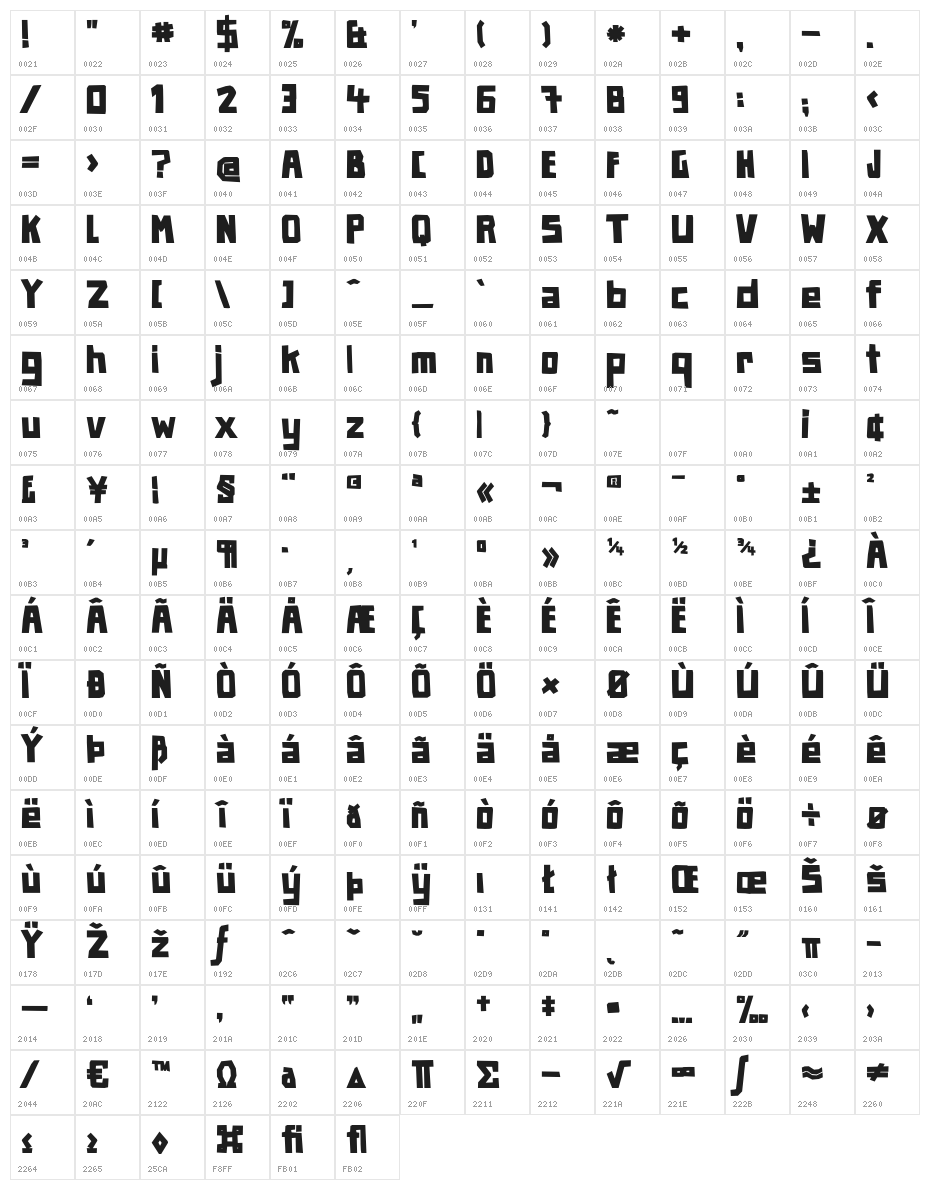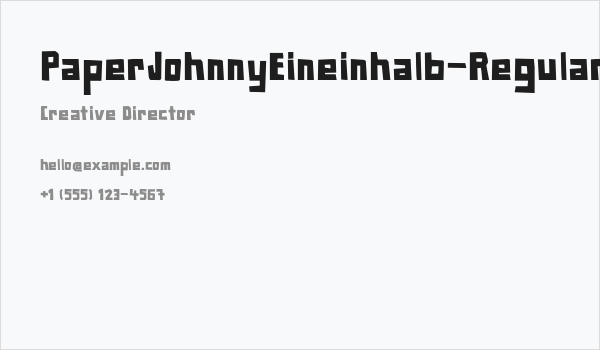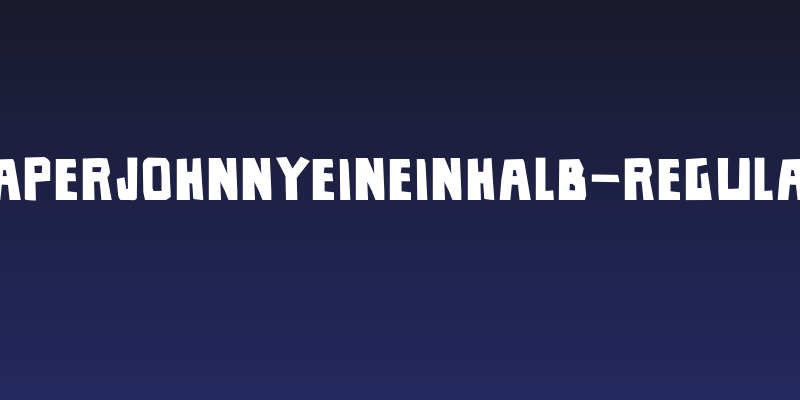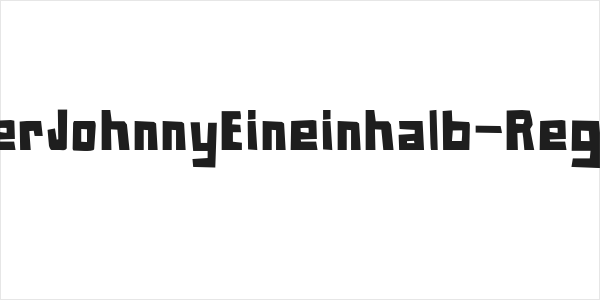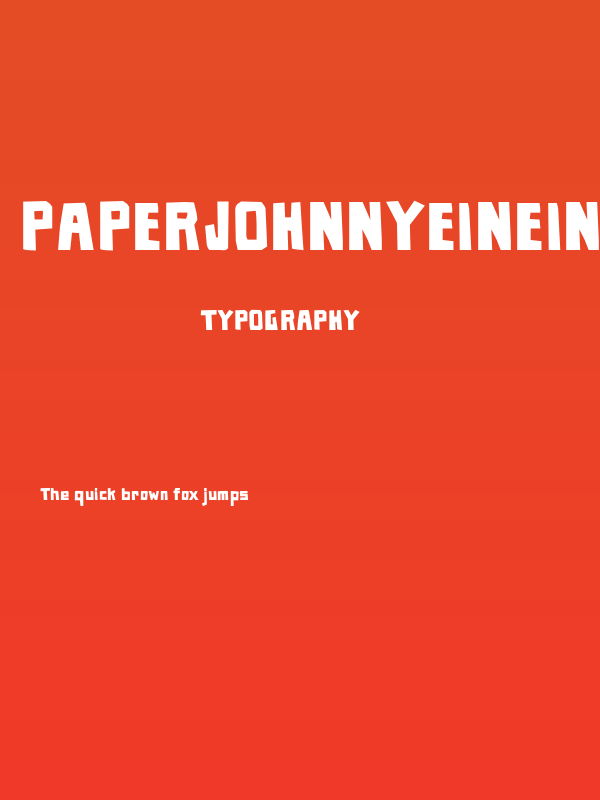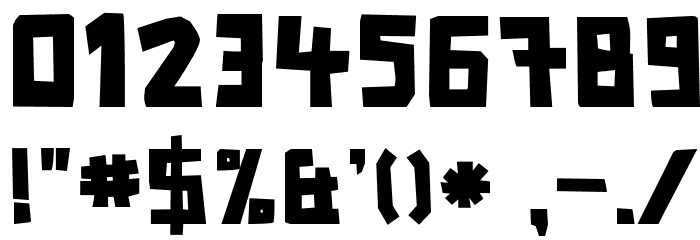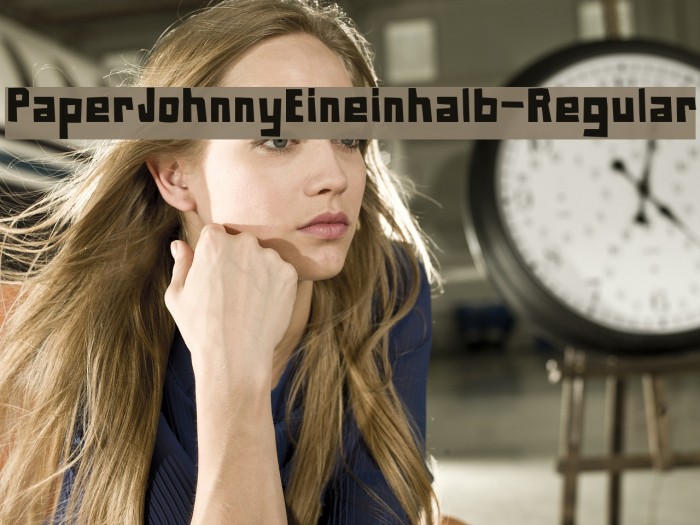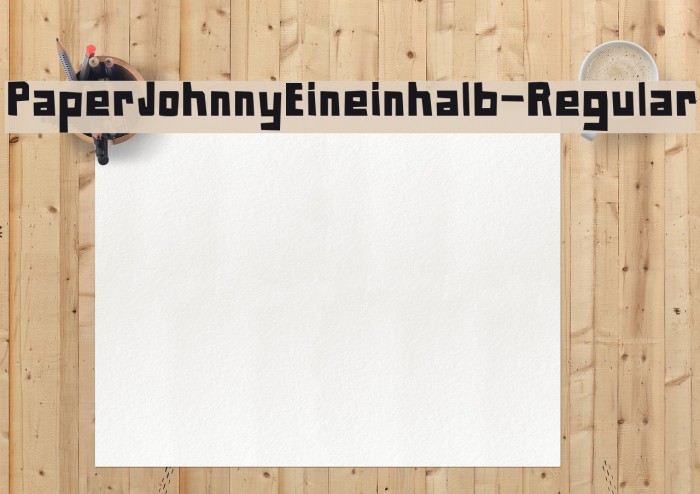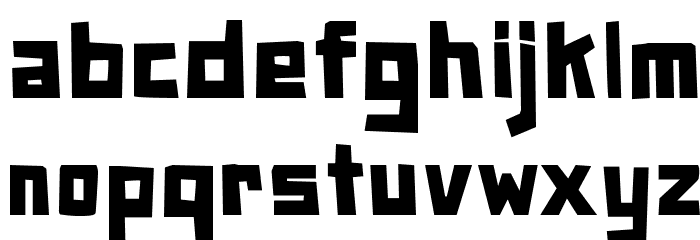
PaperJohnnyEineinhalb-Regular Font
PaperJohnnyEineinhalb-Regular Description
This font features a bold and angular design, characterized by its sharp edges and geometric shapes. The uppercase and lowercase letters maintain a consistent width, giving it a monospaced appearance. The numerals and special characters follow the same angular style, creating a cohesive look across all glyphs. The font's unique style makes it stand out, with a slightly retro yet modern feel. Its boldness and distinct character shapes make it suitable for attention-grabbing designs.
| Proposed Projects | Ideal for posters, headlines, branding, and any design requiring a bold, distinctive typeface. |